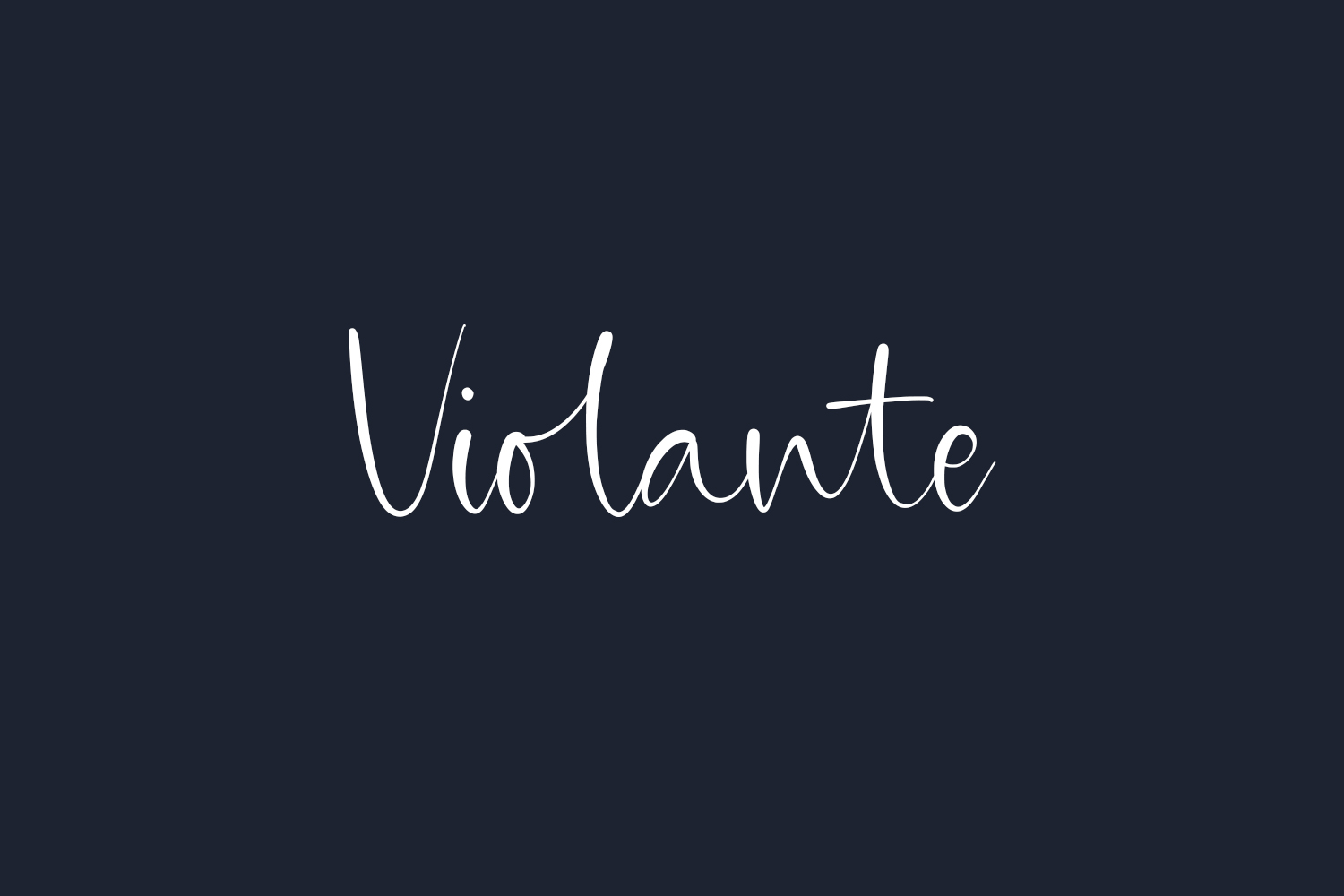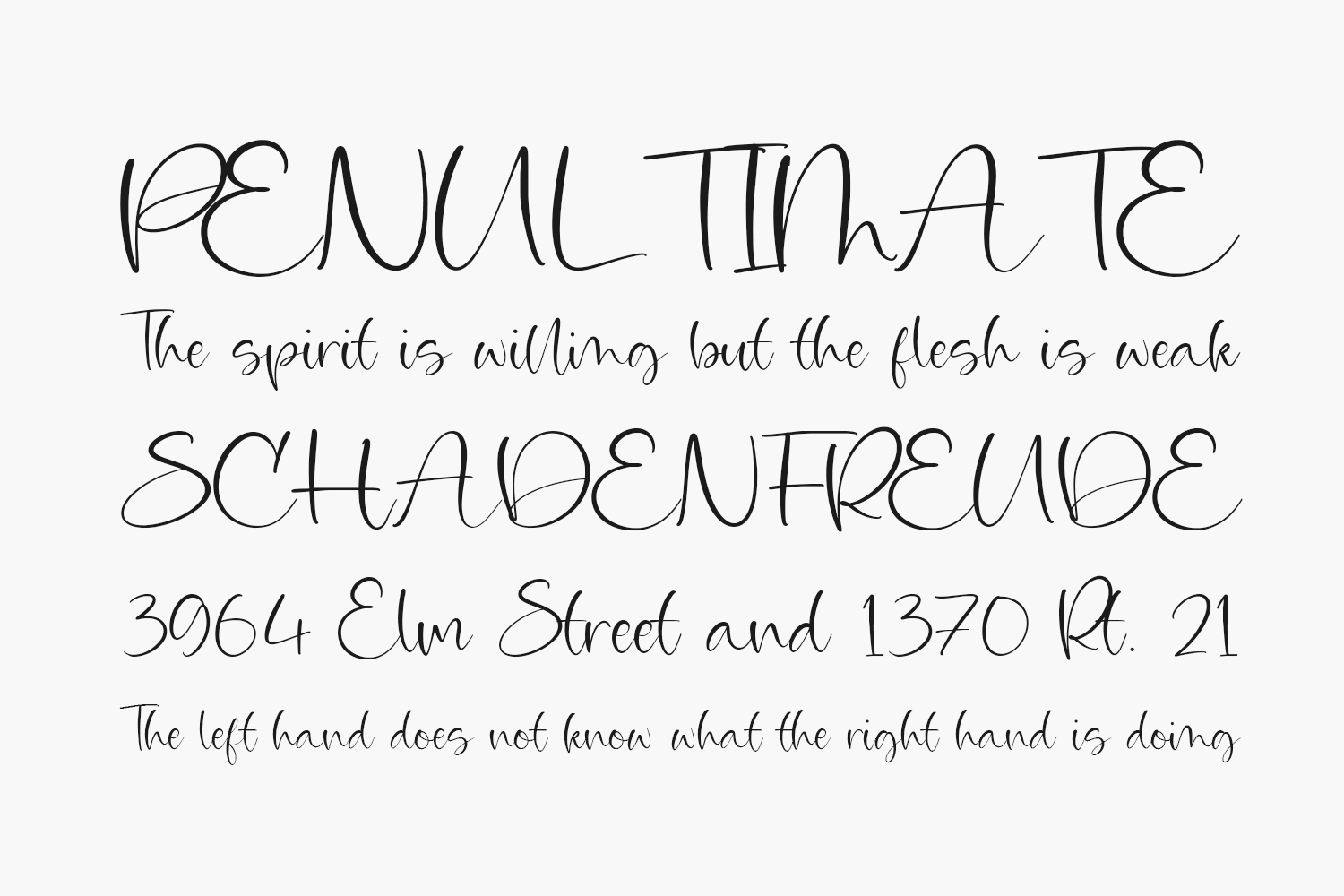
Violante Free Font is a beautiful light handwritten font with a unique feel and a stunning impact. It will add a luxury spark to any design project that you wish to create. Violante Free Font was designed by Balpirick Studio and is free for personal use only. Please purchase the full version for commercial use.